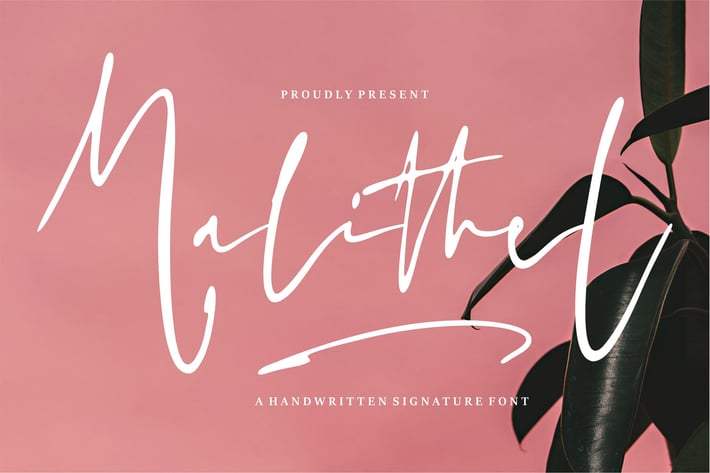
Malithel | Handwritten Signature Font
Malithel | Handwritten Signature Font with a calligraphy style, So beautiful on invitation like greeting cards, branding materials, business cards, quotes, posters, and more!